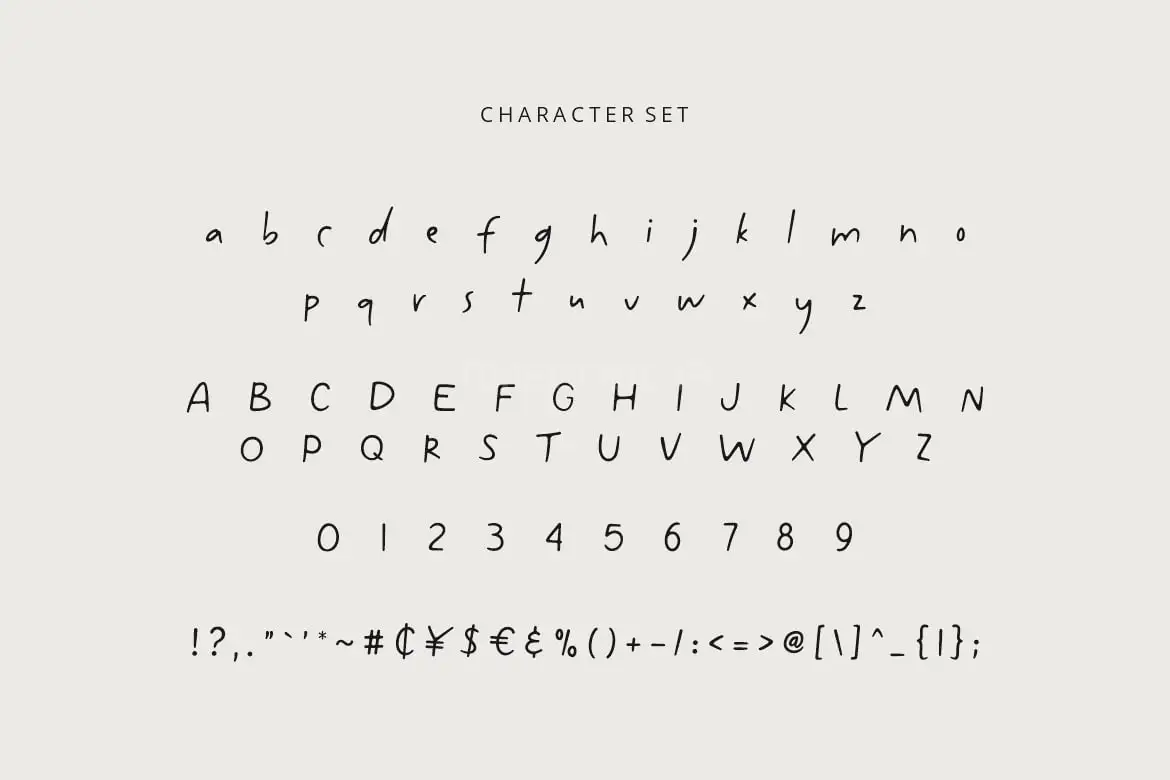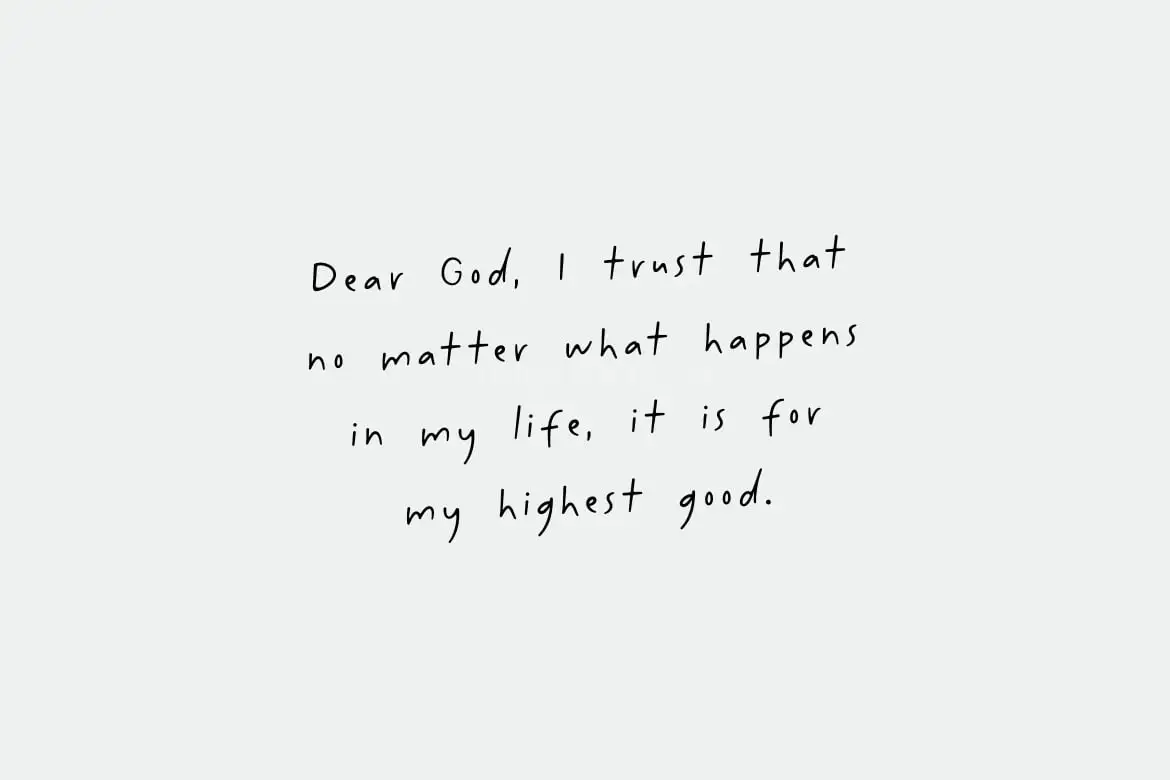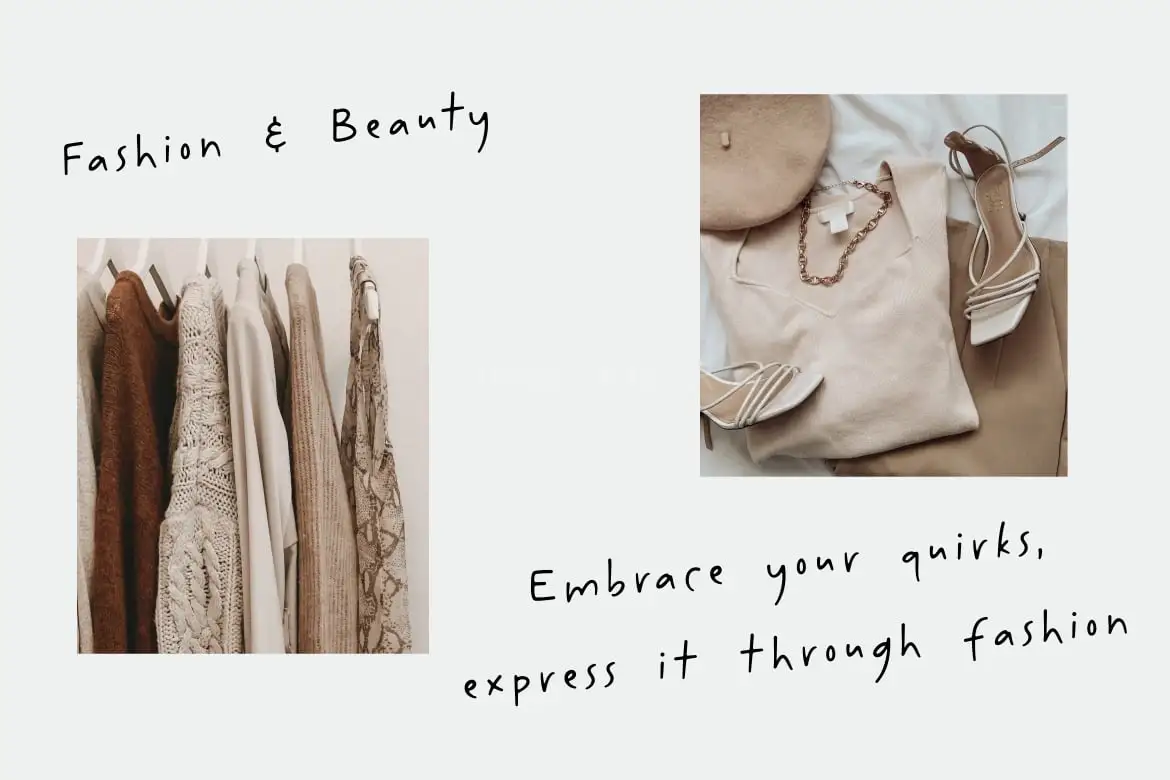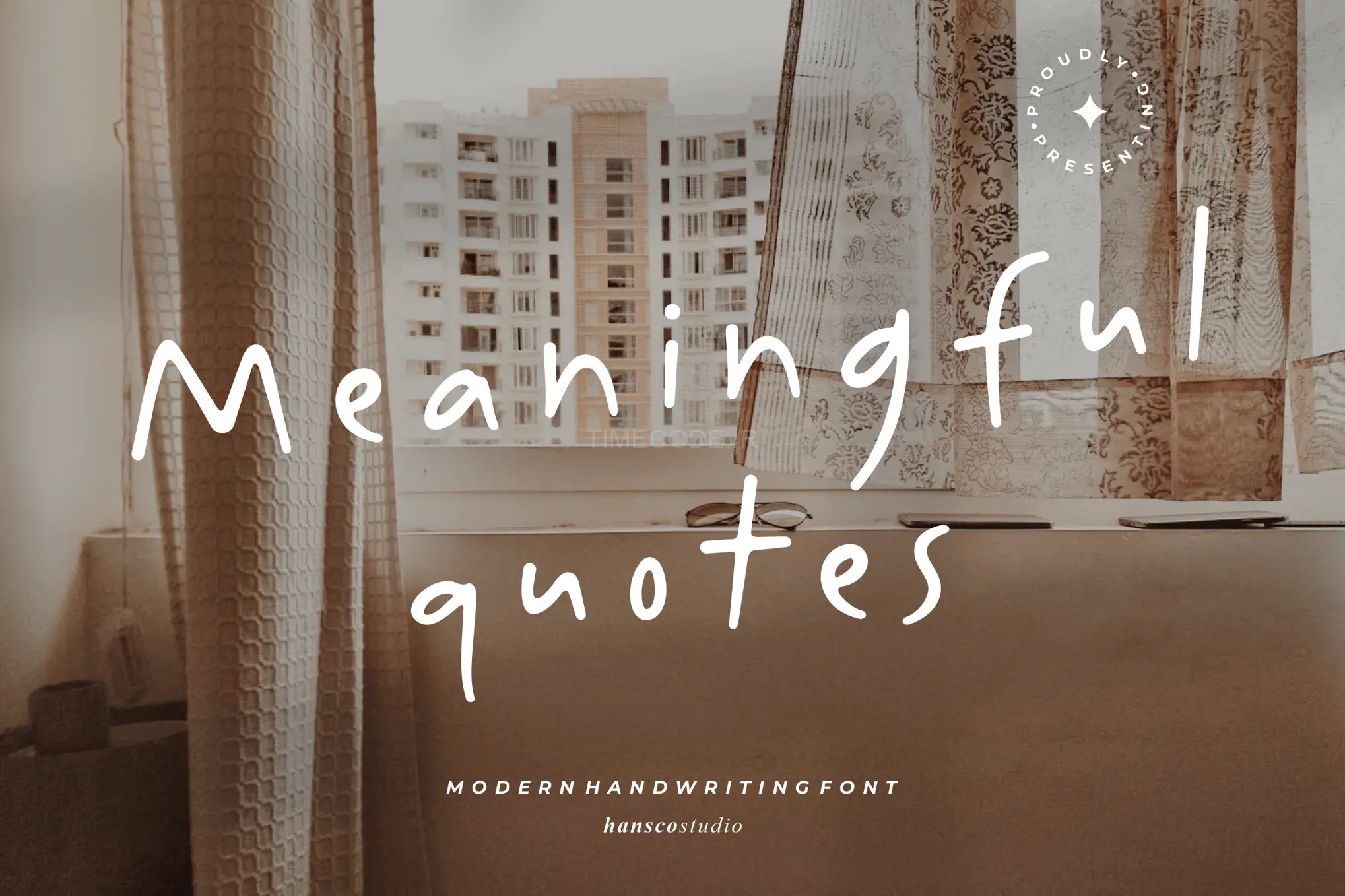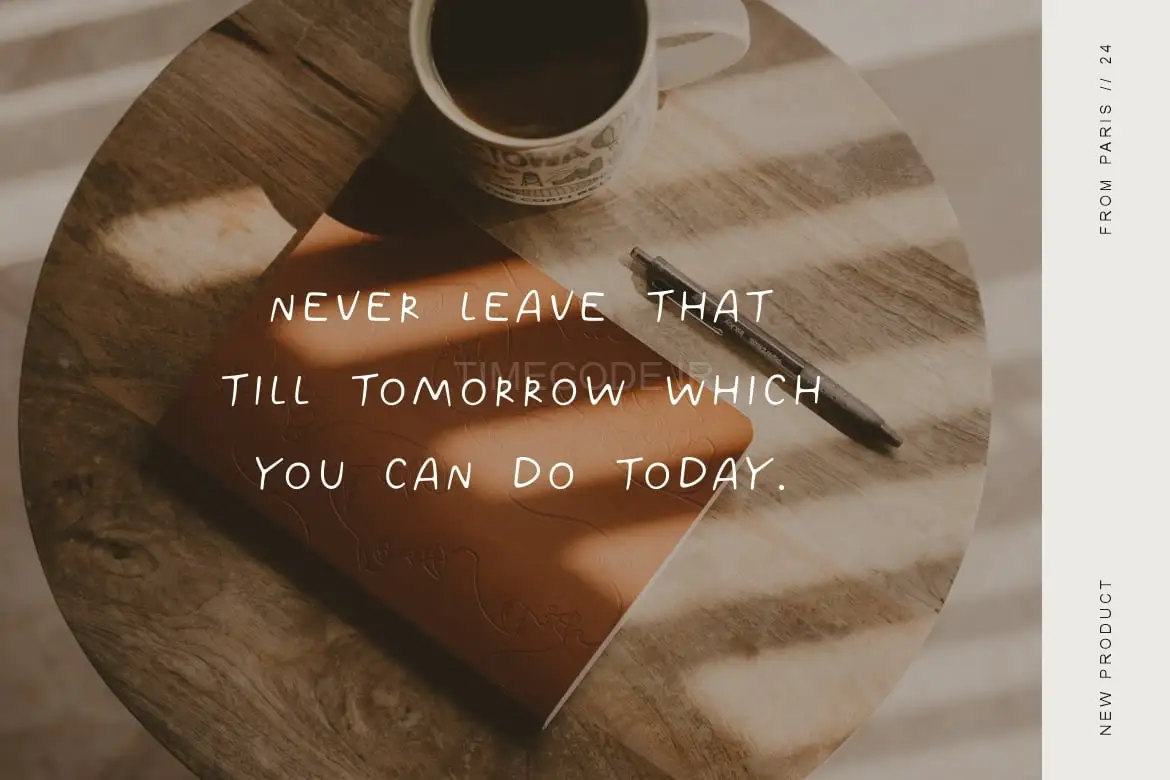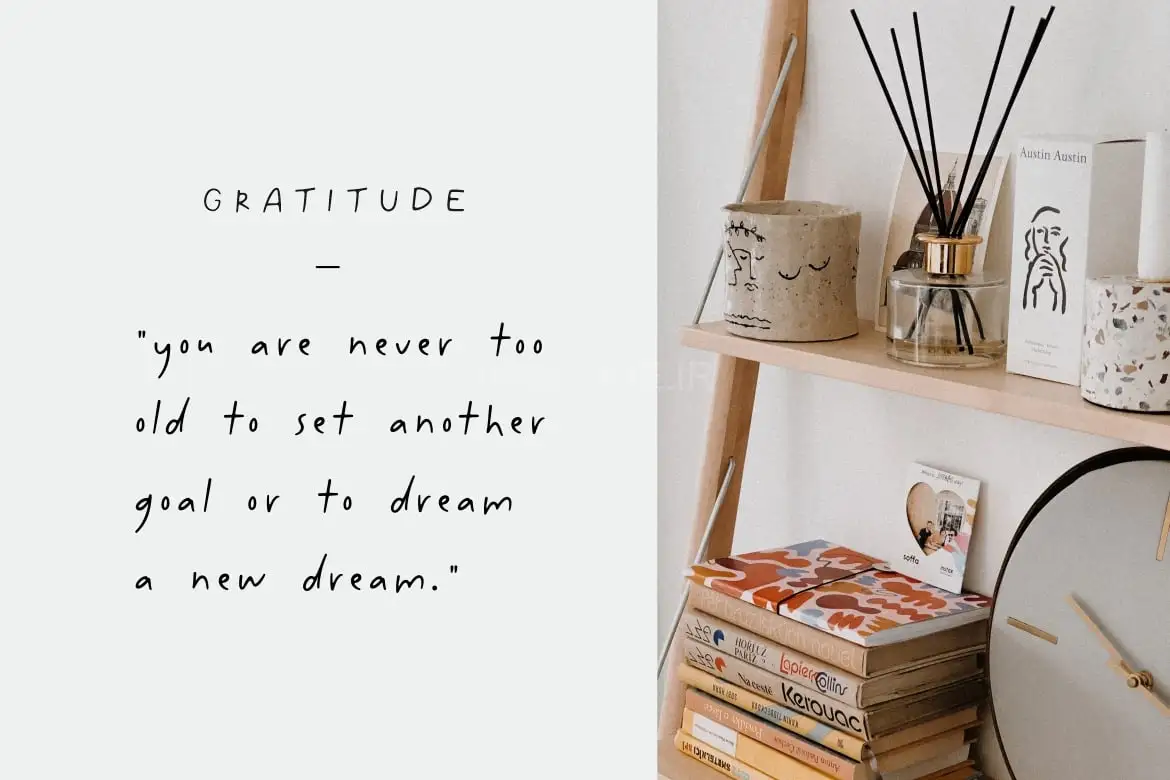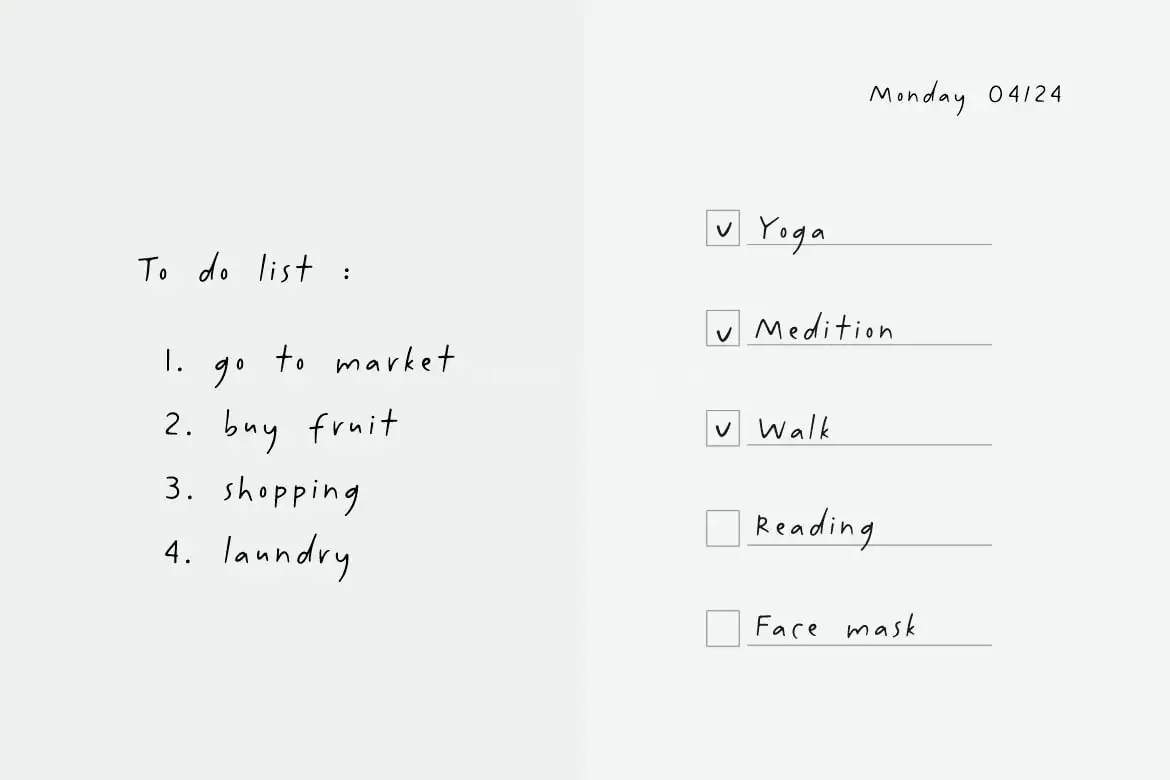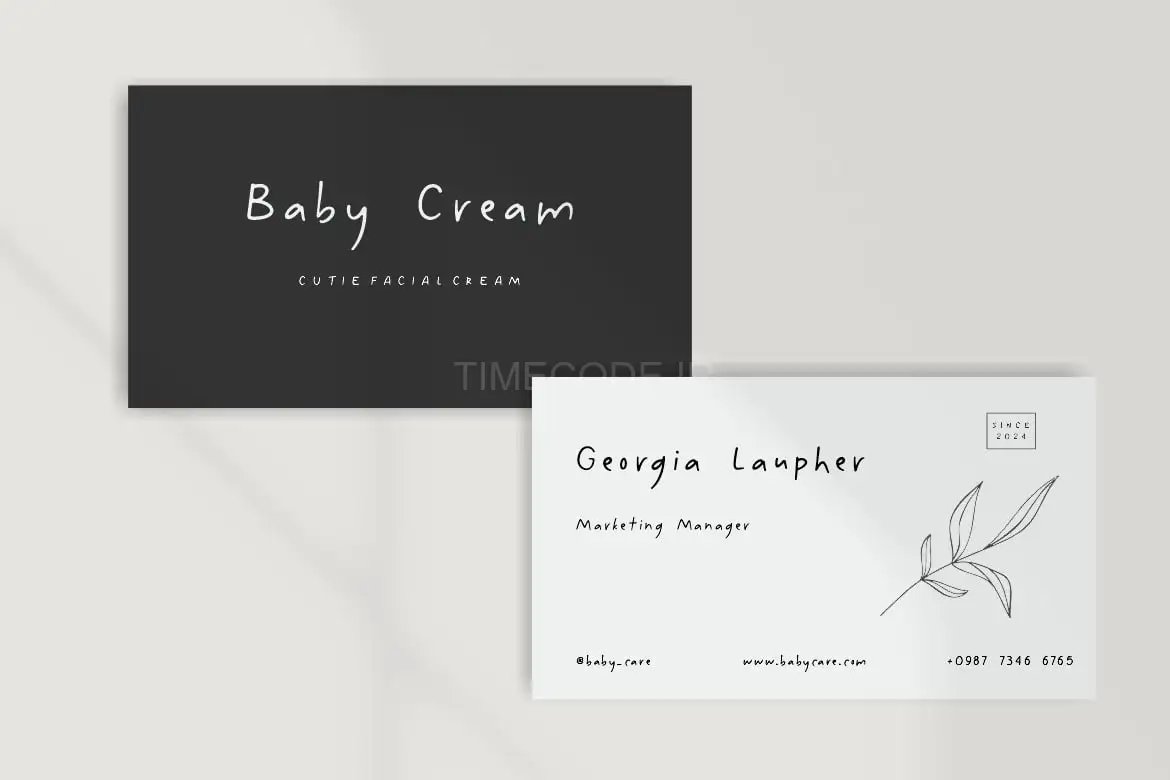
Meaningful Quotes Font is a cute and modern handwritten font. This font is perfect for creating print templates like posters, branding, quotes, blog titles, fashion, invitations, greeting cards, business cards, stationery or anything else. Comes with a full uppercase, lowercase, numbers, punctuation and with extensive language support, it’s going to be a very usable addition to your project.
Features:
- Uppercase & Lowercase
- Numbers & Punctuation
- Multilingual